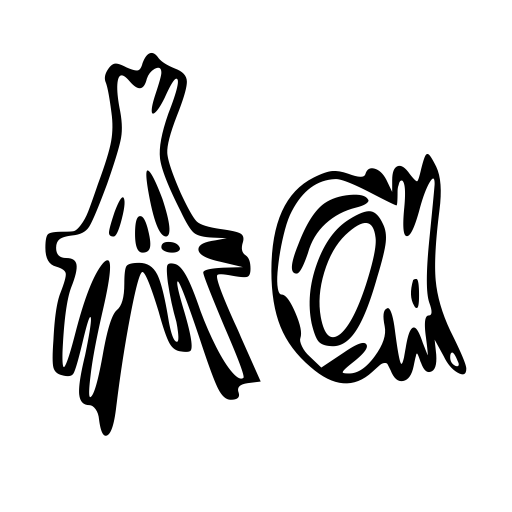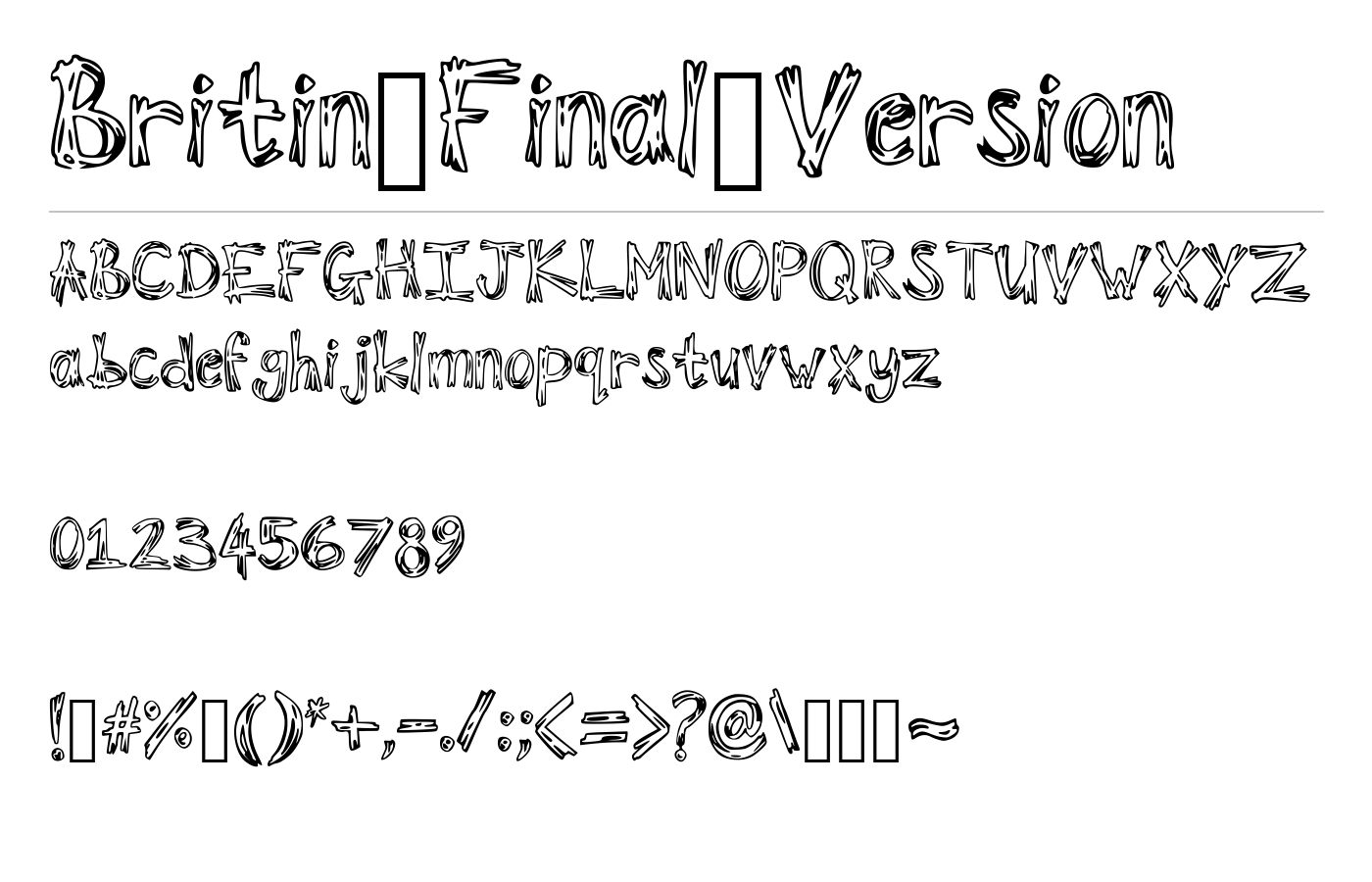
Britin_Final_Version is a playful, hand-drawn sans serif font with irregular, sketch-like strokes that give it a casual, artistic vibe. Its lively and quirky letterforms make it perfect for creative projects, kids’ designs, or any context that benefits from a fun and informal look. This font works well in headlines, posters, and branding where a unique, handcrafted feel is desired.
Britin_Final_Version Font
About Britin_Final_Version Font